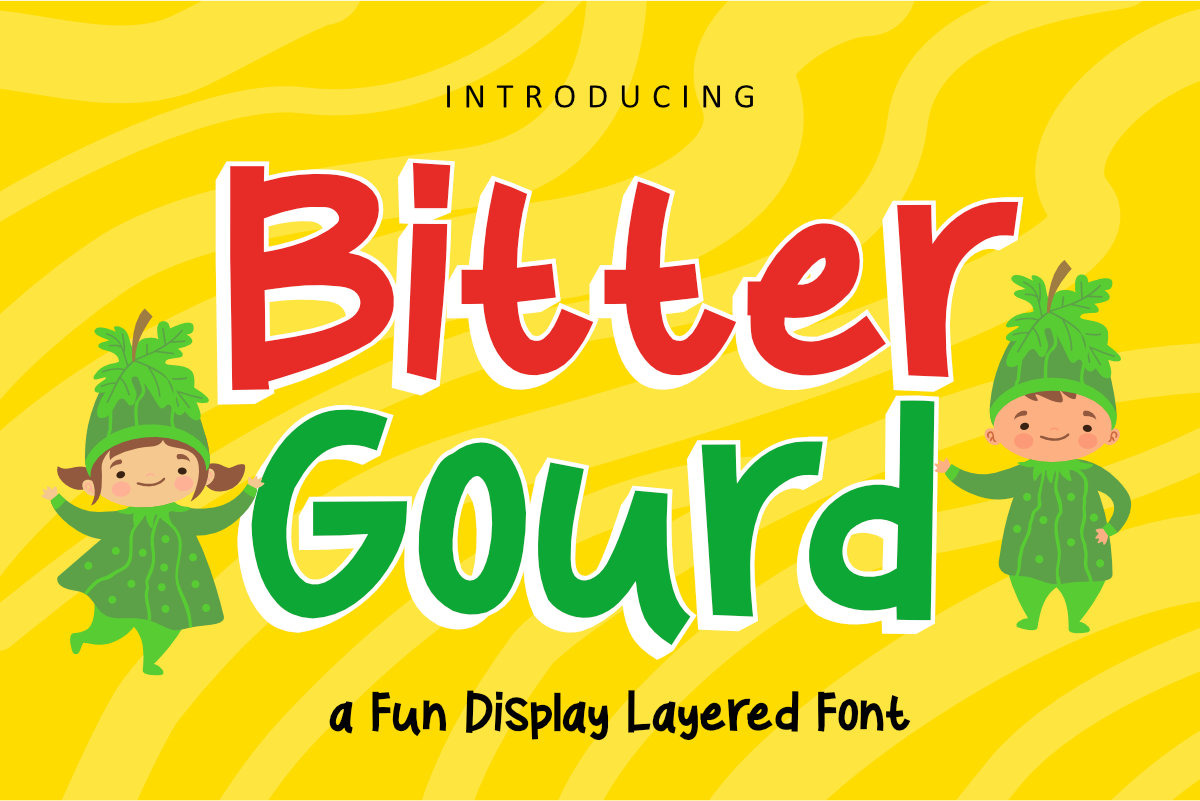
Bitter Gourd Font
Bitter Gourd is a font a fun display layered font with cheerful theme for your fun project. Bitter Gourd is to use for any kind of design such as branding projects, logo, social media posts, advertisements, product packaging, product designs, label, photography, watermark, invitation, stationery and any projects that need fun taste.